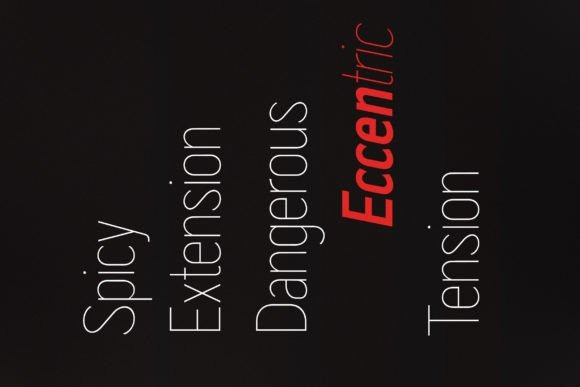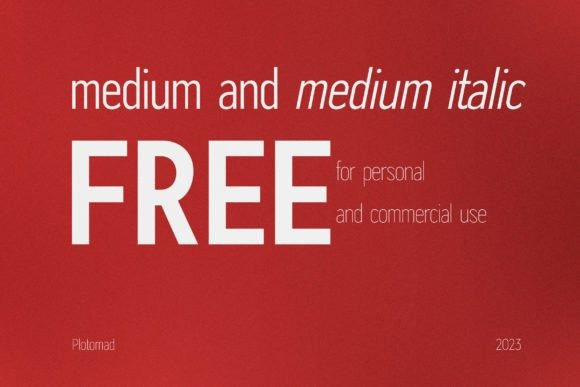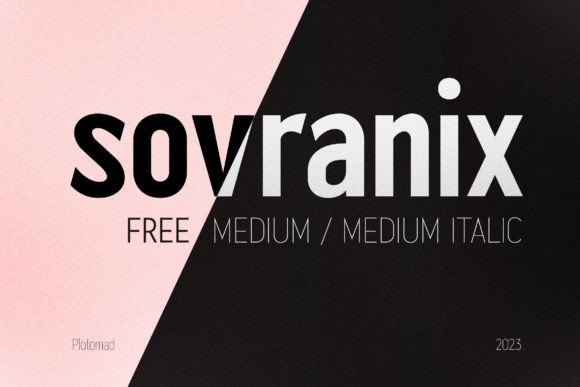
Sovranix Font
Sovranix Font by Plotomad is elongated and modern, with alternate glyphs. It is a font with its own character. This  is perfect for headlines, signage, logos and social media posts and much more. It’s a great choice for any project that needs a modern and busy look.